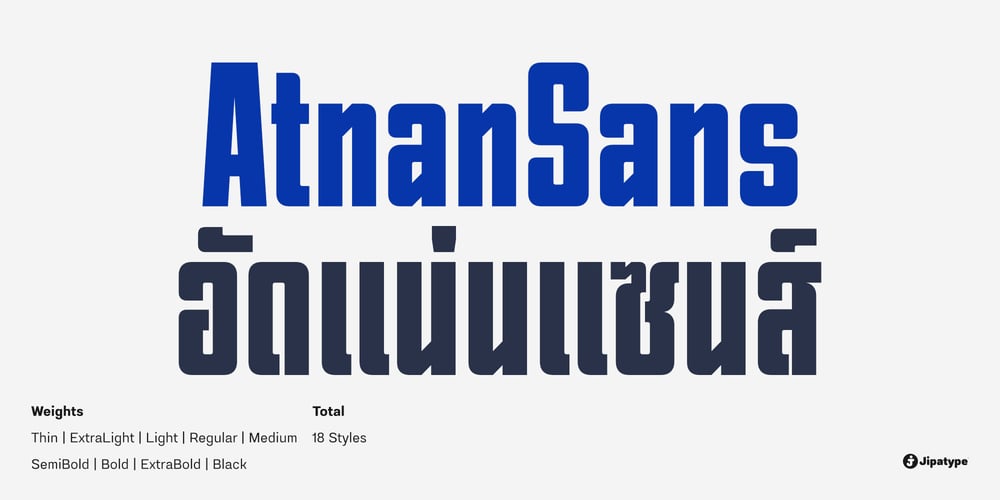
Atnan Sans Font Family was designed by Anupap Jaichumnan and published by Jipatype. Atnan Sans contains 16 styles and family package options. Atnan Sans is a sans-serif typeface designed to be compressed. The overall letterform structure has a flat-backed square characteristic. It is suitable for promotional materials with limited space or when creating attention-grabbing headlines. The font consists of 18 styles, covering weights from the thin to the black weight, and supports both Latin 1 and Thai character sets.